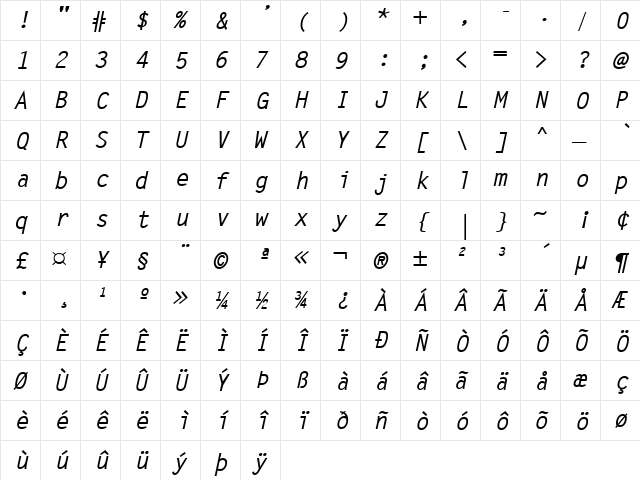
GE Monograph Fixed Width Bold Italic
Design Context for GE Monograph Fixed Width Typeface
GE Monograph Fixed Width brings the precise, column-aligned rhythm of monospaced typography to designs that value technical clarity and systematic order. Its italic angle brings a sense of urgency and motion to the letterforms. The heavy weight commands attention and anchors typographic hierarchies.
A natural fit for code editors, technical documentation, developer-focused branding, and terminal-inspired UI.
Pro Tip: Pair GE Monograph Fixed Width with a proportional sans for UI contexts where code-style labels and regular body copy need to coexist.